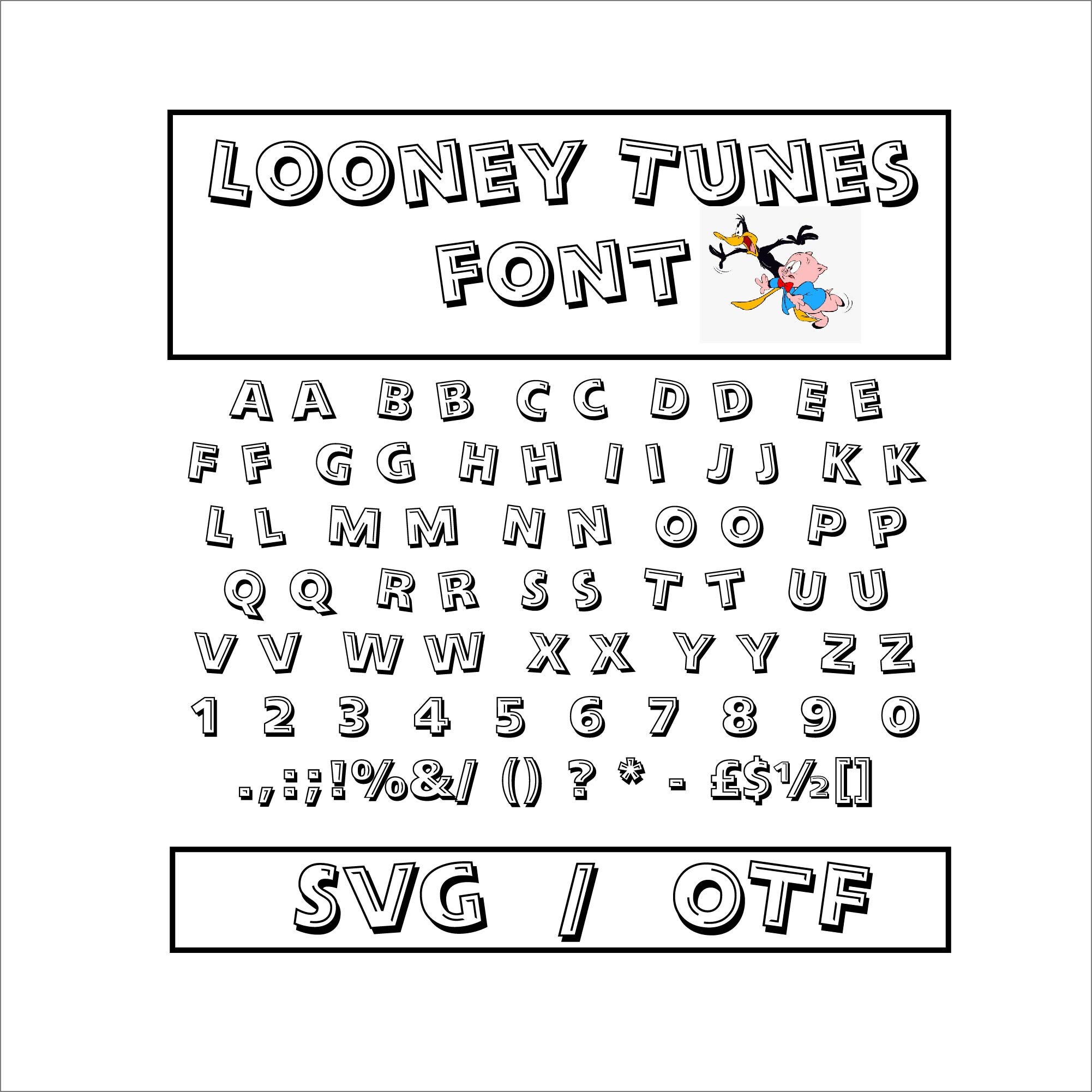
Looney Tune Font
Looney Tune Font - The font used for the looney tunes logo is. But you can only use it for free for personal use. Web try our text generator and create cool graphics for looney tunes font, then you can save the font image to your pc, mac, linux, ios and android device. Web today we are introducing another excellent font family known as looney tunes font. Web it was known for introducing many famous cartoon characters such as bugs bunny, daffy duck, marvin the martian etc. Web looney tunes fonts have 260 glyphs and 257 characters, and 2048 units per em. This font family is totally based on an american animated comedy. We are happy to bring you an appealing typeface, looney tunes. It’s totally based on looney tunes movie.
It’s totally based on looney tunes movie. Web looney tunes fonts have 260 glyphs and 257 characters, and 2048 units per em. Web try our text generator and create cool graphics for looney tunes font, then you can save the font image to your pc, mac, linux, ios and android device. We are happy to bring you an appealing typeface, looney tunes. Web it was known for introducing many famous cartoon characters such as bugs bunny, daffy duck, marvin the martian etc. Web today we are introducing another excellent font family known as looney tunes font. This font family is totally based on an american animated comedy. The font used for the looney tunes logo is. But you can only use it for free for personal use.
It’s totally based on looney tunes movie. Web looney tunes fonts have 260 glyphs and 257 characters, and 2048 units per em. Web try our text generator and create cool graphics for looney tunes font, then you can save the font image to your pc, mac, linux, ios and android device. This font family is totally based on an american animated comedy. We are happy to bring you an appealing typeface, looney tunes. The font used for the looney tunes logo is. Web it was known for introducing many famous cartoon characters such as bugs bunny, daffy duck, marvin the martian etc. Web today we are introducing another excellent font family known as looney tunes font. But you can only use it for free for personal use.
Web today we are introducing another excellent font family known as looney tunes font. We are happy to bring you an appealing typeface, looney tunes. This font family is totally based on an american animated comedy. Web try our text generator and create cool graphics for looney tunes font, then you can save the font image to your pc, mac,.
Web try our text generator and create cool graphics for looney tunes font, then you can save the font image to your pc, mac, linux, ios and android device. Web looney tunes fonts have 260 glyphs and 257 characters, and 2048 units per em. We are happy to bring you an appealing typeface, looney tunes. This font family is totally.
It’s totally based on looney tunes movie. This font family is totally based on an american animated comedy. Web today we are introducing another excellent font family known as looney tunes font. Web it was known for introducing many famous cartoon characters such as bugs bunny, daffy duck, marvin the martian etc. The font used for the looney tunes logo.
Web today we are introducing another excellent font family known as looney tunes font. The font used for the looney tunes logo is. But you can only use it for free for personal use. This font family is totally based on an american animated comedy. Web looney tunes fonts have 260 glyphs and 257 characters, and 2048 units per em.
We are happy to bring you an appealing typeface, looney tunes. The font used for the looney tunes logo is. Web try our text generator and create cool graphics for looney tunes font, then you can save the font image to your pc, mac, linux, ios and android device. But you can only use it for free for personal use..
The font used for the looney tunes logo is. Web try our text generator and create cool graphics for looney tunes font, then you can save the font image to your pc, mac, linux, ios and android device. We are happy to bring you an appealing typeface, looney tunes. It’s totally based on looney tunes movie. This font family is.
Web today we are introducing another excellent font family known as looney tunes font. We are happy to bring you an appealing typeface, looney tunes. Web looney tunes fonts have 260 glyphs and 257 characters, and 2048 units per em. But you can only use it for free for personal use. Web try our text generator and create cool graphics.
It’s totally based on looney tunes movie. But you can only use it for free for personal use. Web today we are introducing another excellent font family known as looney tunes font. This font family is totally based on an american animated comedy. Web it was known for introducing many famous cartoon characters such as bugs bunny, daffy duck, marvin.
Web looney tunes fonts have 260 glyphs and 257 characters, and 2048 units per em. Web try our text generator and create cool graphics for looney tunes font, then you can save the font image to your pc, mac, linux, ios and android device. Web it was known for introducing many famous cartoon characters such as bugs bunny, daffy duck,.
The font used for the looney tunes logo is. Web today we are introducing another excellent font family known as looney tunes font. Web try our text generator and create cool graphics for looney tunes font, then you can save the font image to your pc, mac, linux, ios and android device.